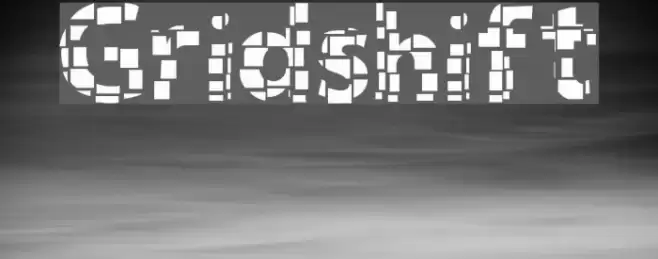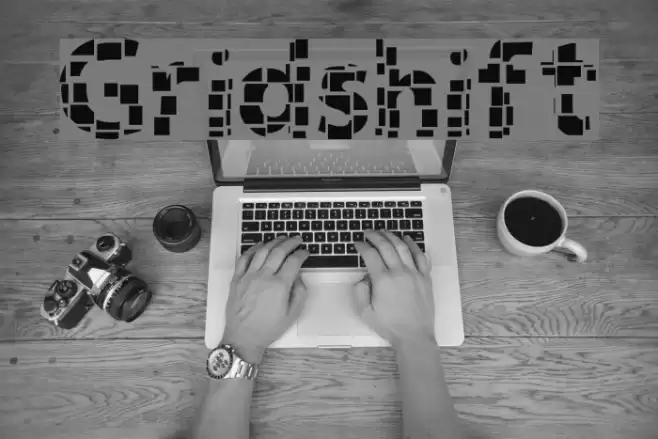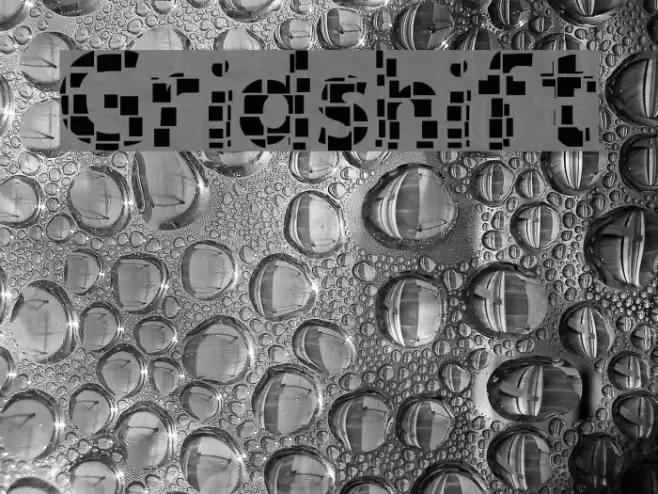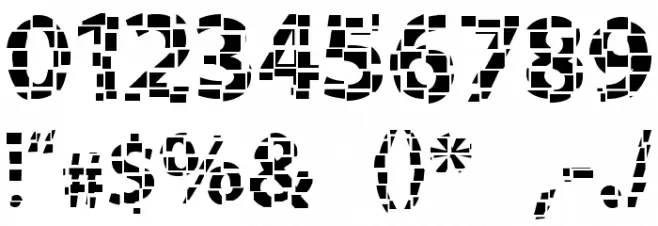
Gridshift Font
Gridshift Description
This font features a unique, fragmented design that gives the impression of a grid-like pattern overlaying each character. The letters are bold and display a high level of contrast, with thick strokes that are interrupted by a series of horizontal and vertical cuts. This creates a visually striking effect that is both modern and abstract. The uppercase and lowercase letters maintain a consistent style, and the numerals and special characters follow the same fragmented pattern. The overall appearance is dynamic and eye-catching, making it suitable for creative and artistic projects.
A bold, fragmented font with a grid-like pattern, offering a modern and abstract style from Uncategorized fonts.
- Proposed Projects: Ideal for artistic posters, album covers, modern branding, and digital artwork.
- Overall Style: Modern, Abstract